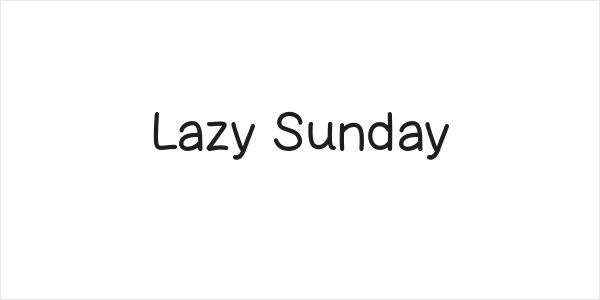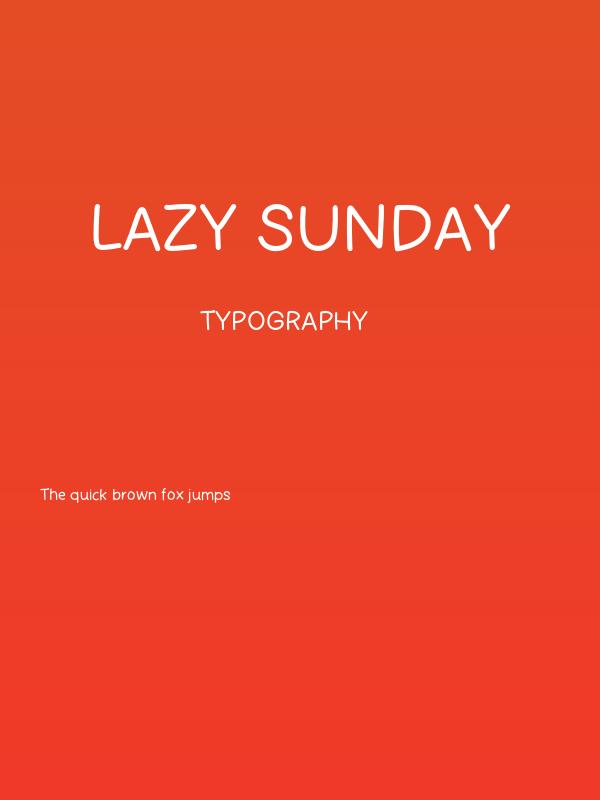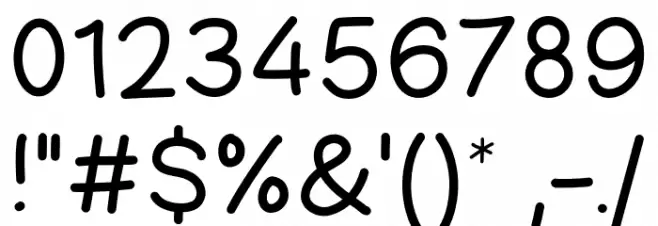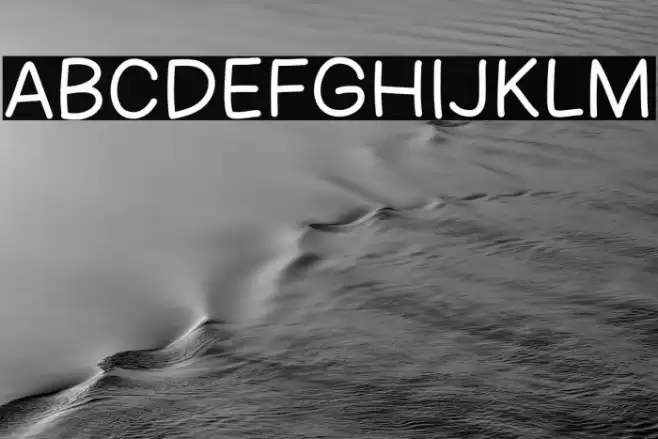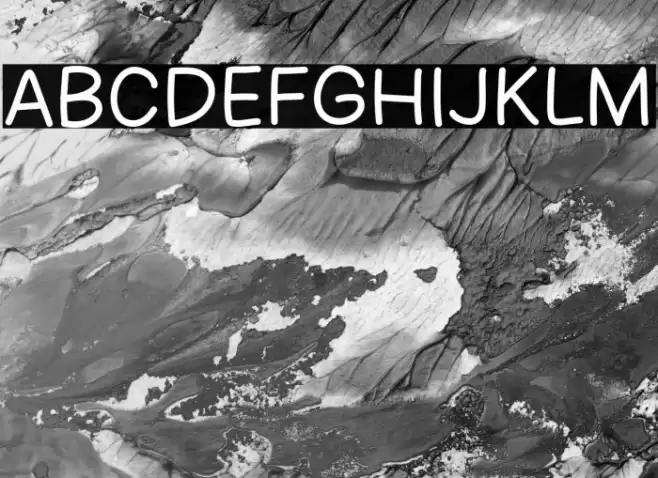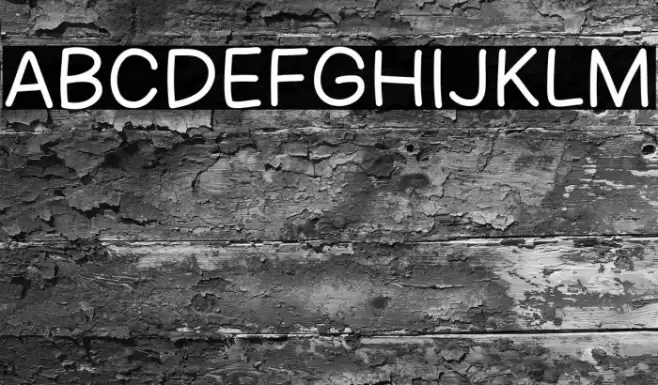
Lazy Sunday Font
Lazy Sunday Description
This font exudes a casual and friendly vibe, characterized by its rounded and slightly irregular letterforms. The strokes are consistent in width, giving it a uniform appearance, while the playful curves add a touch of whimsy. The font maintains a hand-drawn aesthetic, making it approachable and warm. It features a full set of uppercase and lowercase letters, numerals, and a variety of special characters, ensuring versatility in its application. The overall design is clean and legible, suitable for both digital and print media. Its informal style makes it ideal for projects that aim to convey a sense of fun and creativity.
| Use Case | Headlines, Informal text, Creative projects |
| Proposed Projects | Ideal for children's books, greeting cards, casual branding, and social media graphics. |